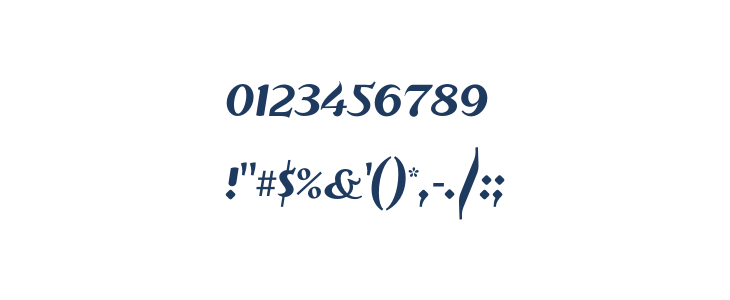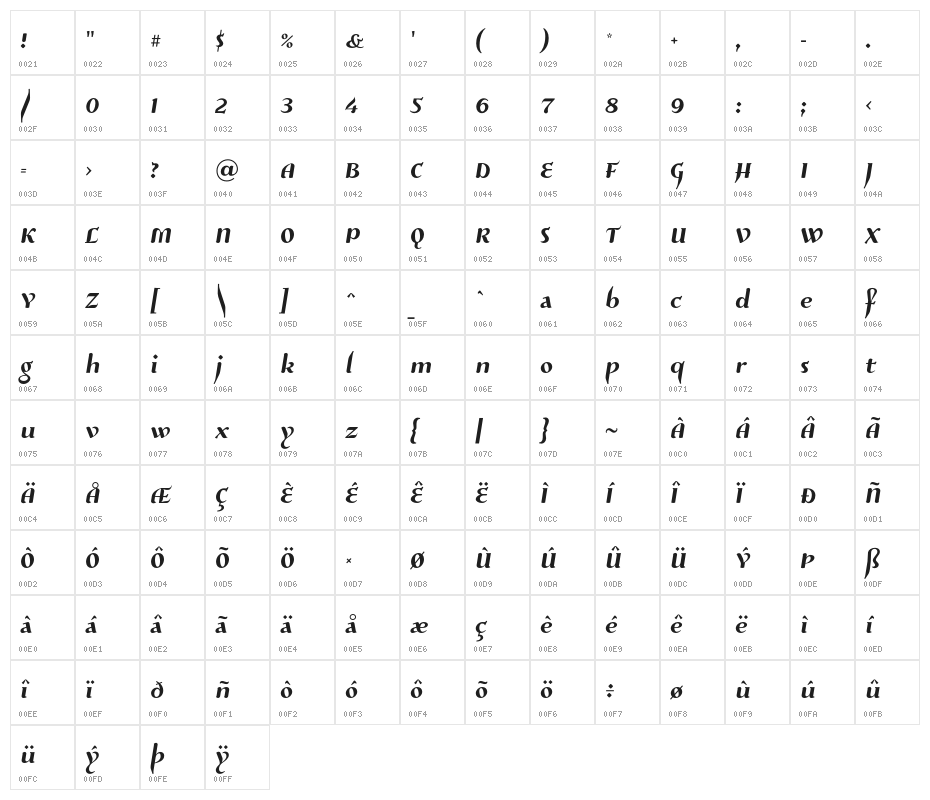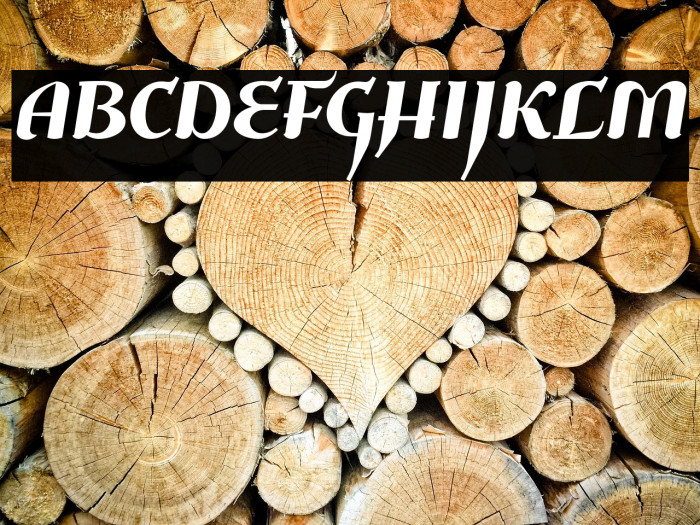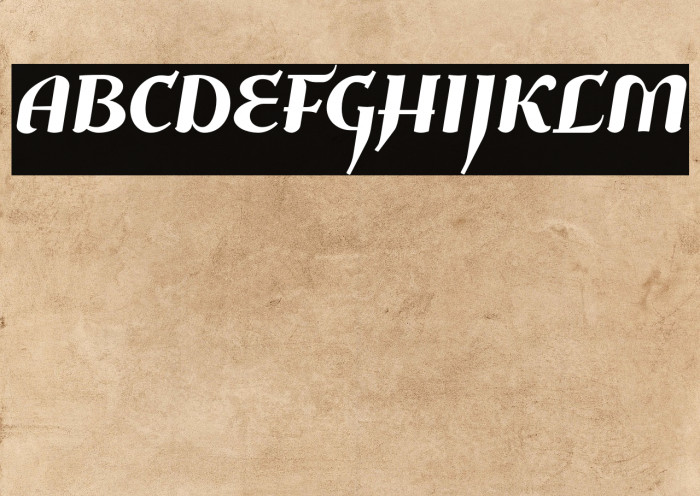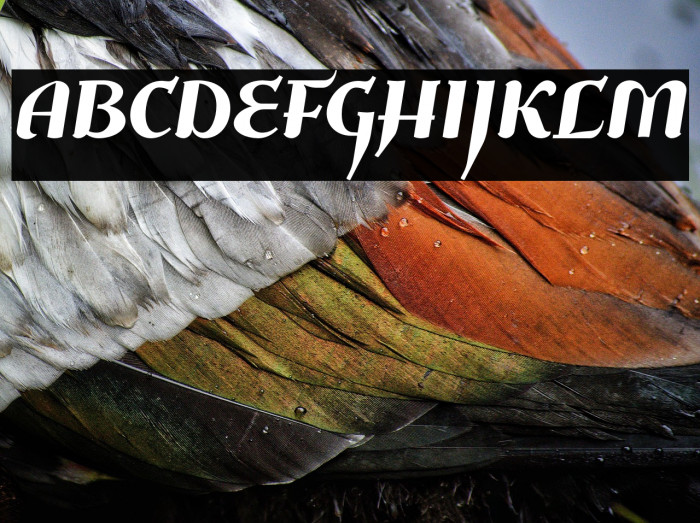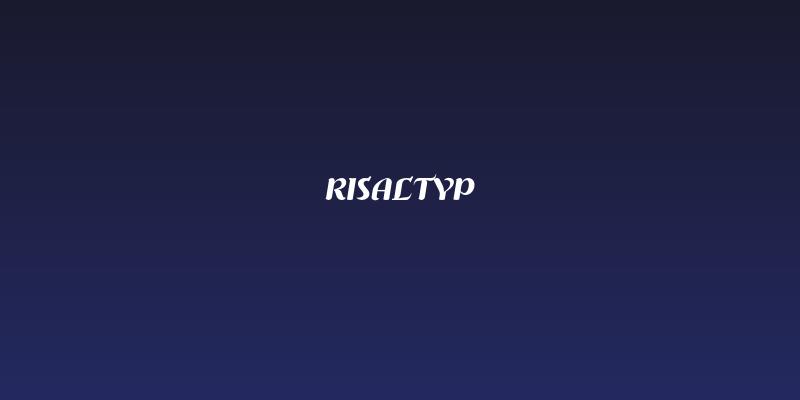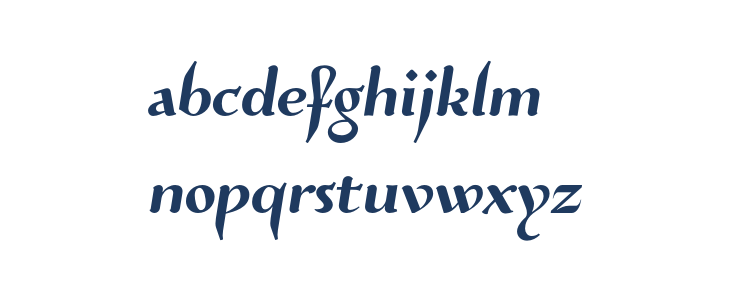
Risaltyp Font
Risaltyp Description
This font exhibits a dynamic and flowing style, characterized by its calligraphic influence and elegant curves. The uppercase letters feature sharp, angular serifs, while the lowercase letters maintain a smooth, cursive appearance. The numerals are consistent with the overall style, offering a harmonious blend of traditional and modern elements. Special characters are crafted with the same attention to detail, ensuring a cohesive look across all glyphs. The font's unique flair makes it suitable for creative and expressive design projects.